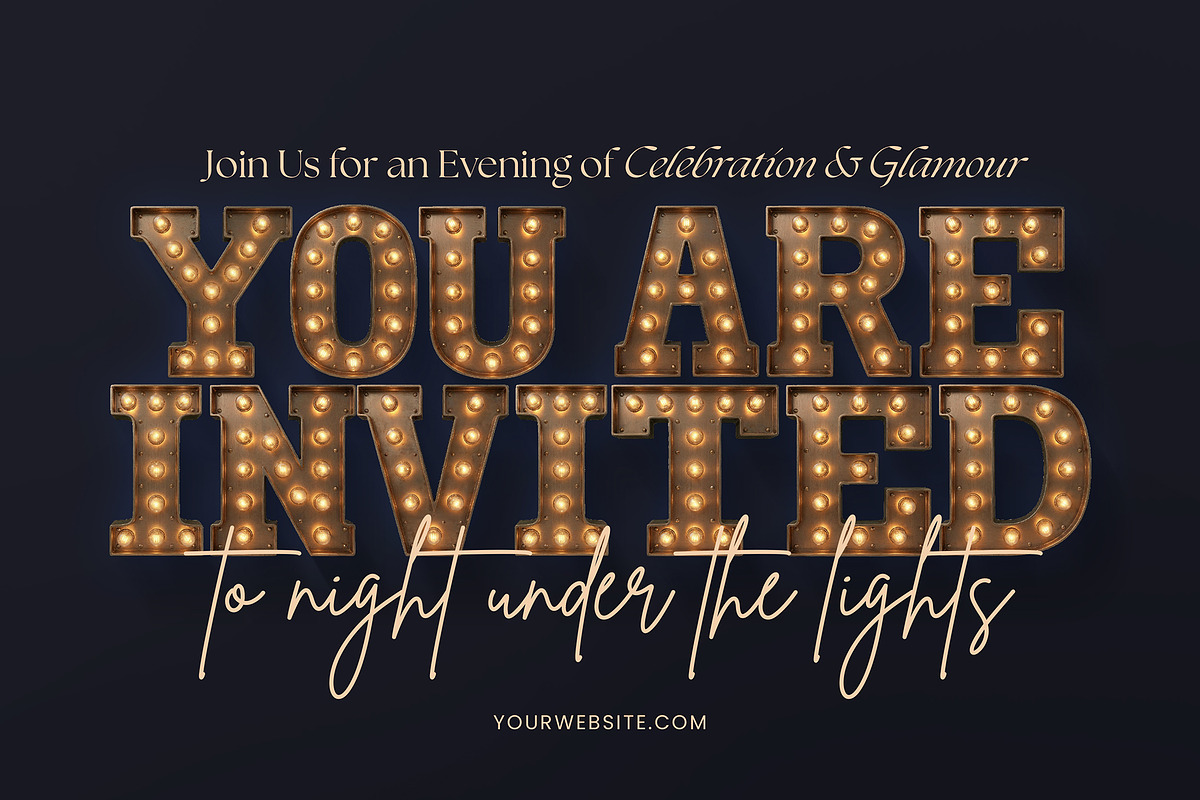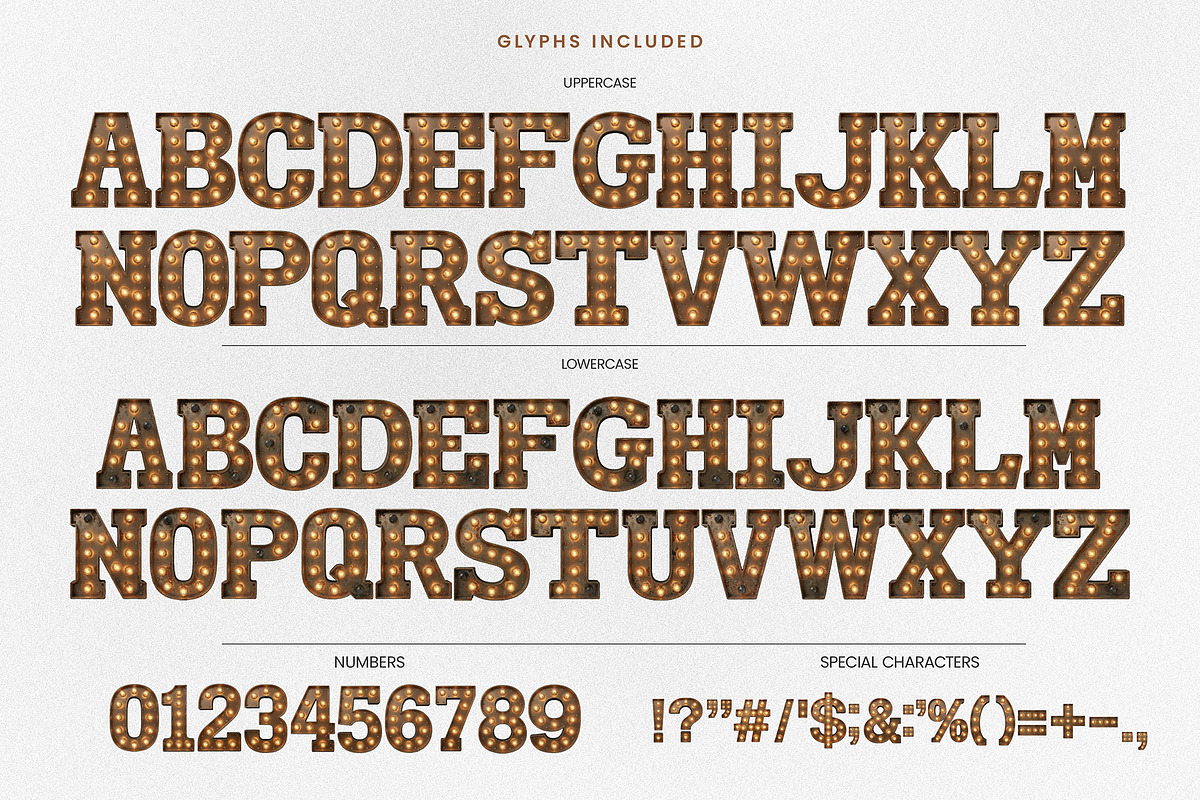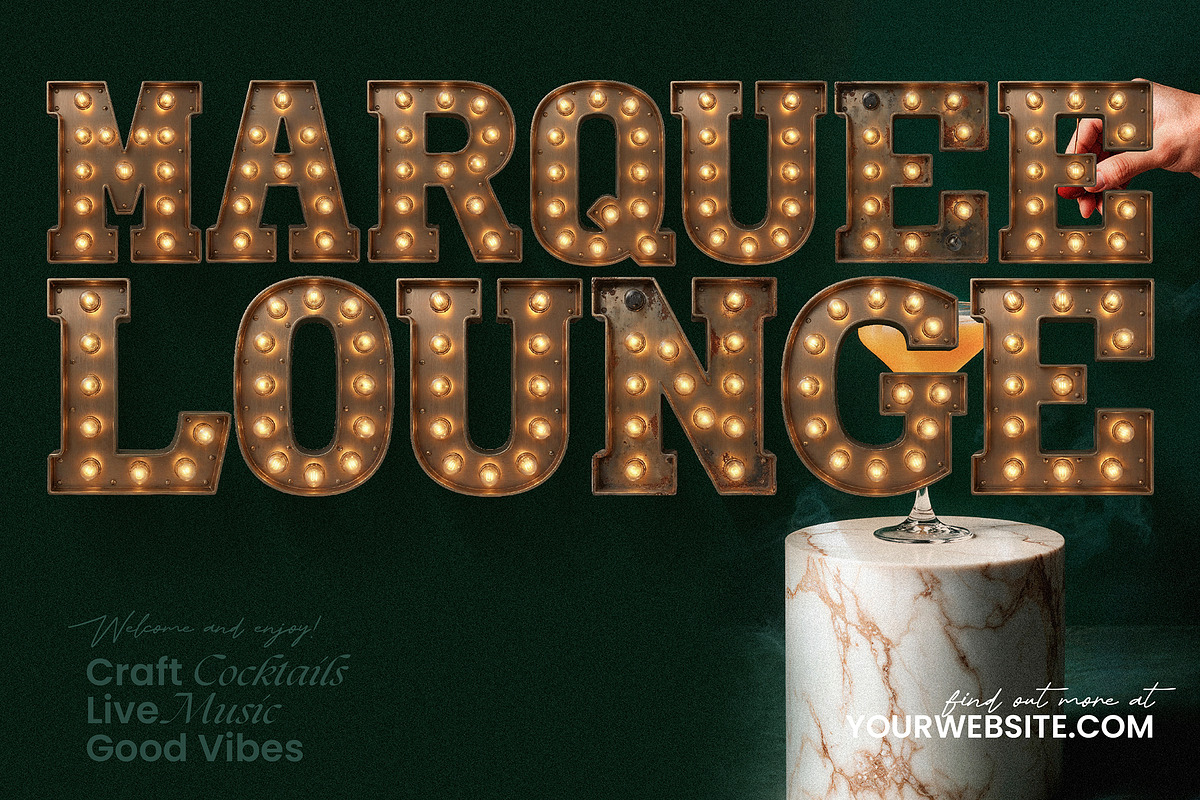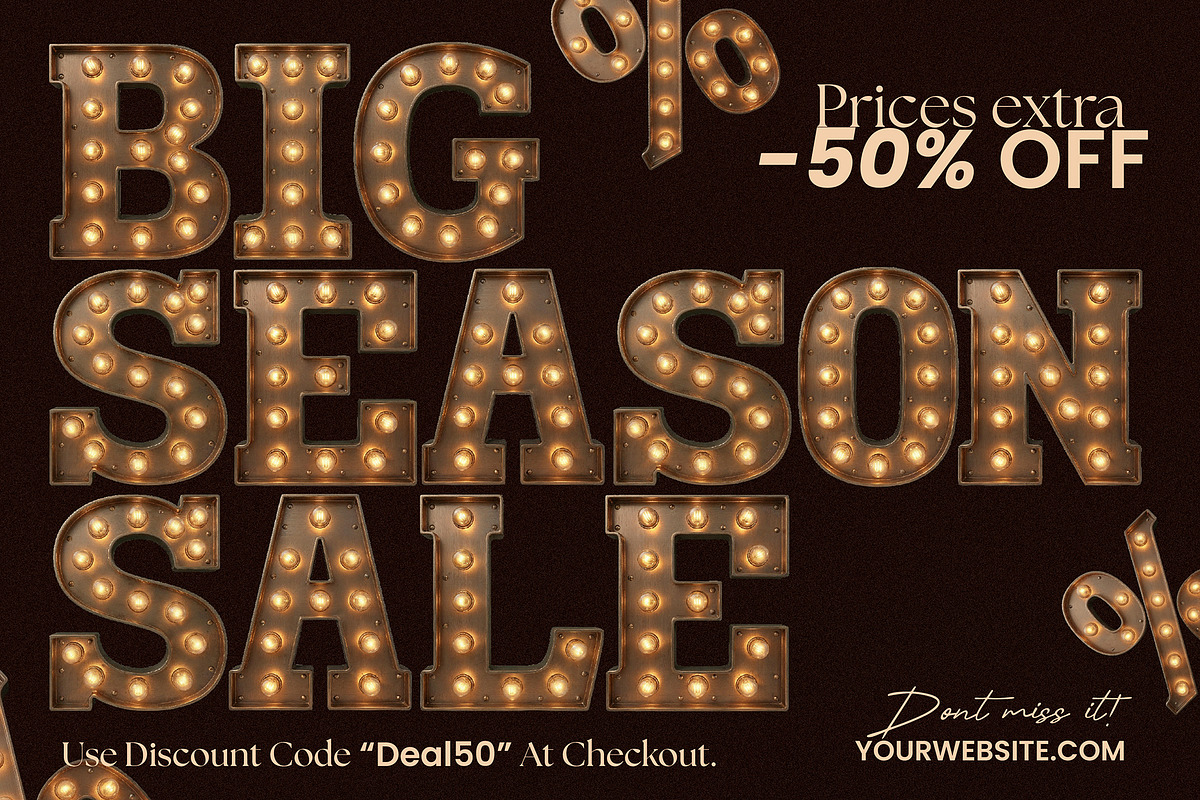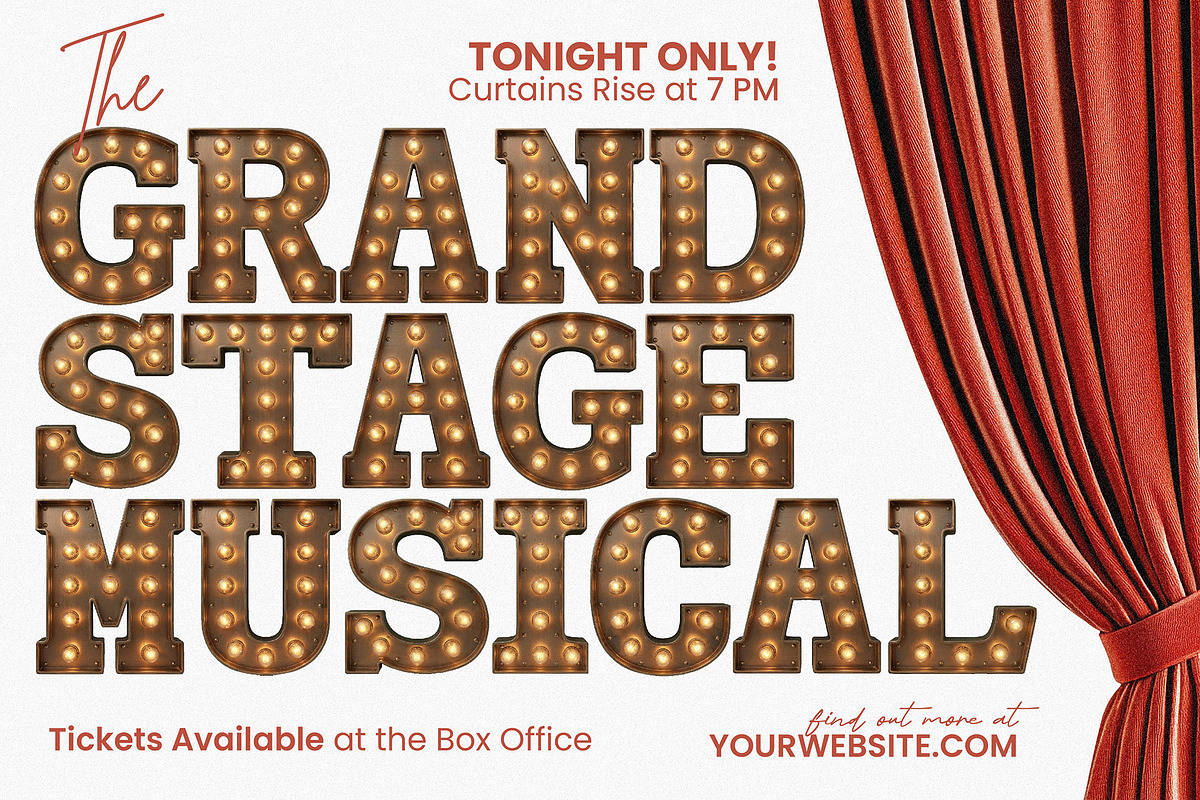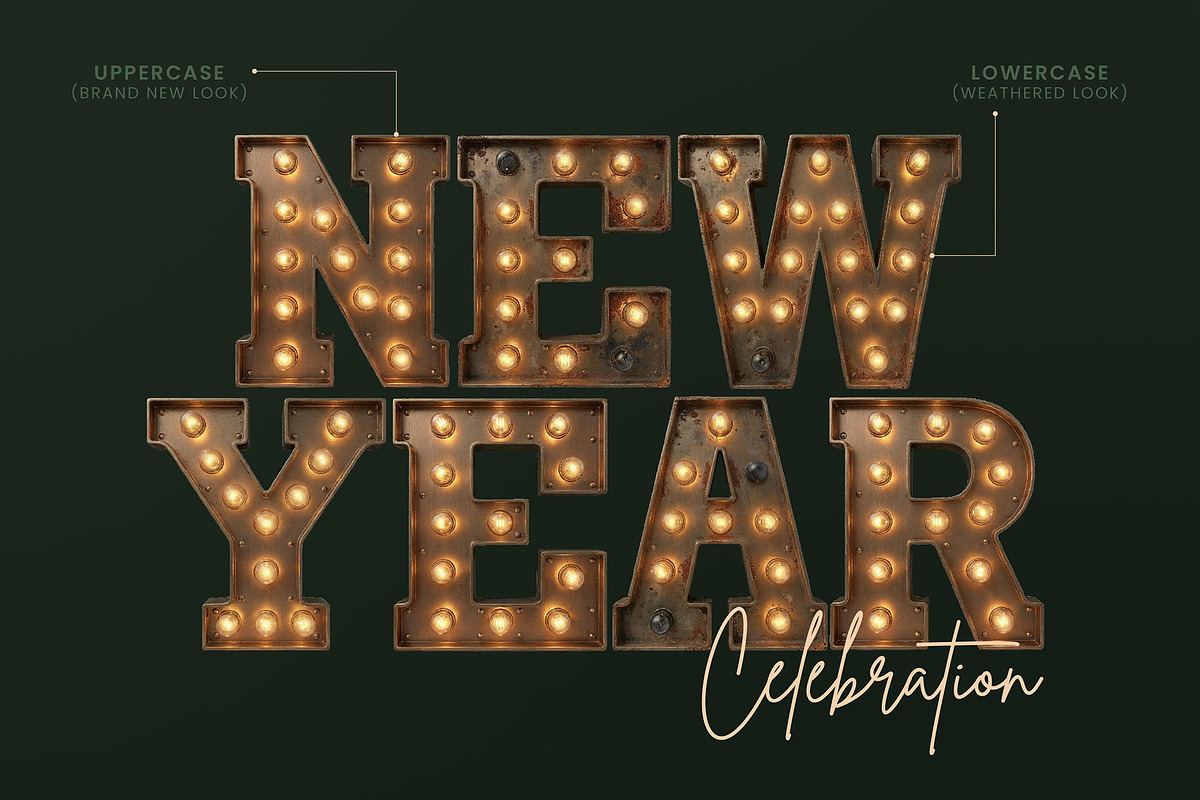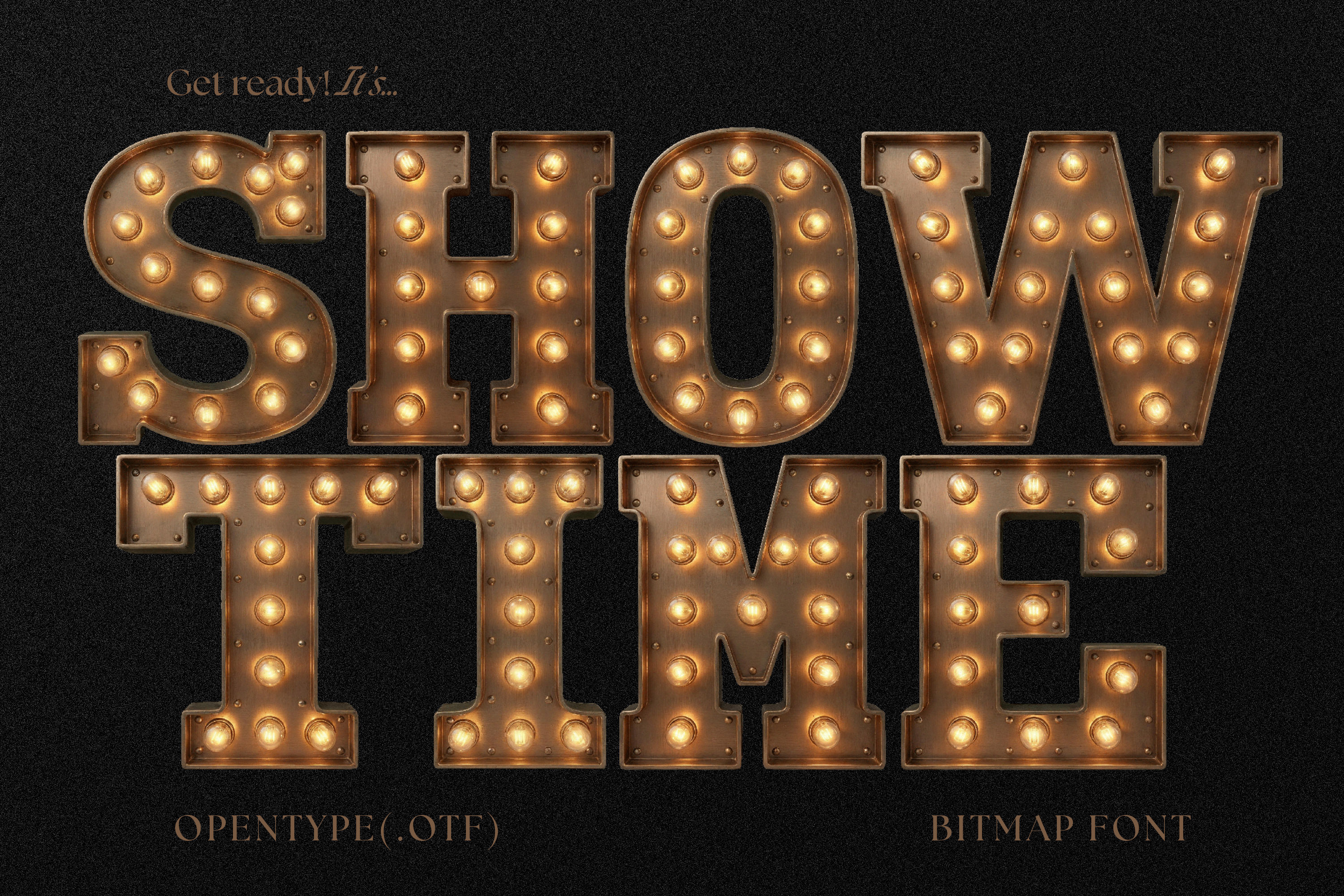
Showtime - Retro Marquee Font
Bring the magic of the marquee to your next project! SHOWTIME is a vintage light-bulb font inspired by classic theater signs, carnival displays, and old Hollywood glamour. Crafted for designers who want dramatic, eye-catching typography, this font is perfect for posters, headlines, logos, signage, and anything that needs that big stage energy.
- Theater posters & stage promotions
- Event flyers & concert graphics
- Bar, restaurant, or lounge signage
- Retro movie titles or trailer graphics
- Party invitations (Hollywood, Gatsby, casino, birthday)
- Social media announcements & promo posts